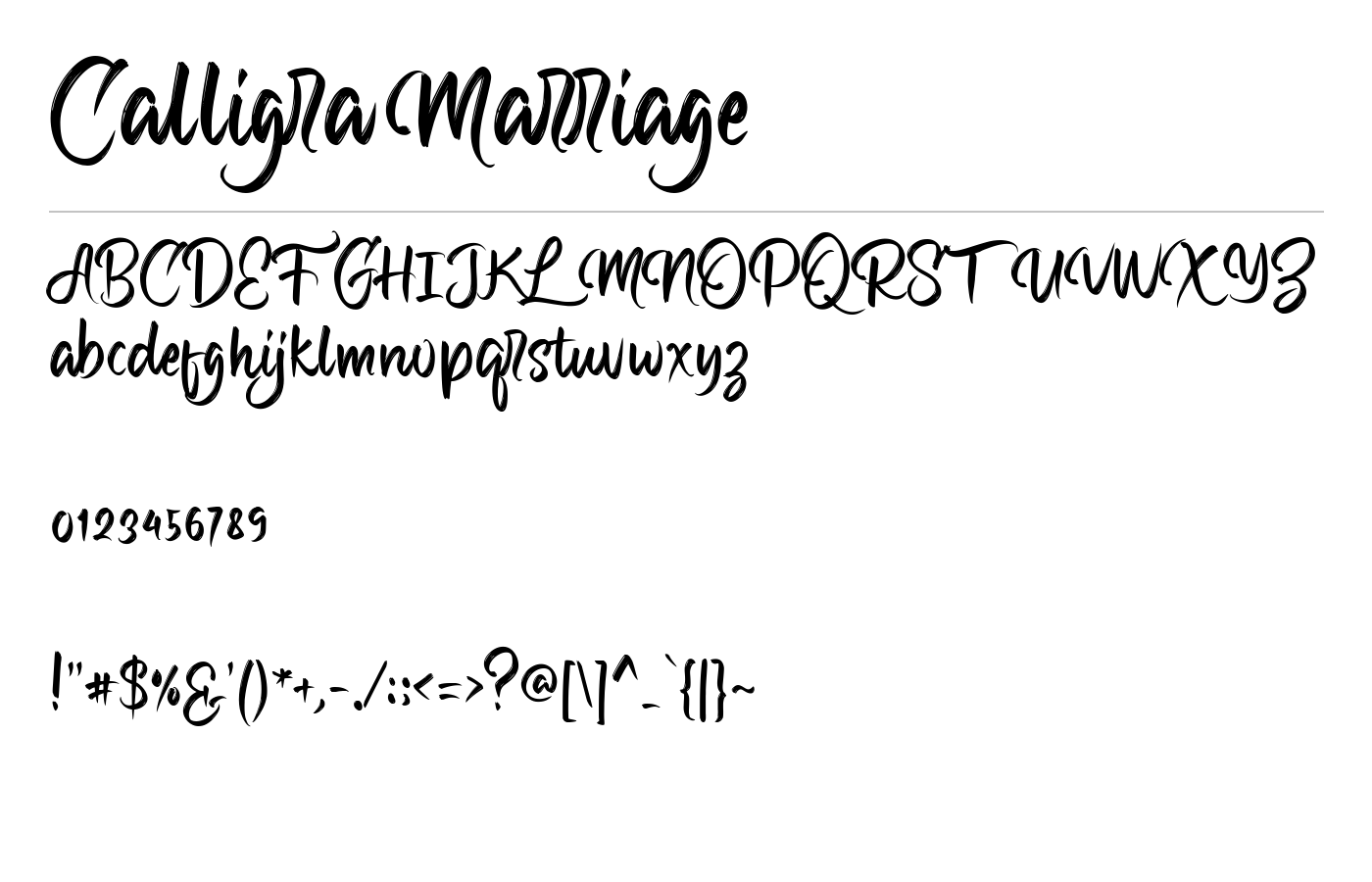
Calligra Marriage is a stylish brush script font with a lively, hand-lettered feel, featuring smooth, flowing strokes and natural variations in thickness. Its elegant yet playful personality makes it ideal for wedding invitations, branding, and creative projects that need a personal, heartfelt touch. This font works best in headlines and decorative text where its expressive style can truly stand out.
Calligra Marriage Font
About Calligra Marriage Font
| Font family | Calligra Marriage Font |
| Designer | Ari Fadli |